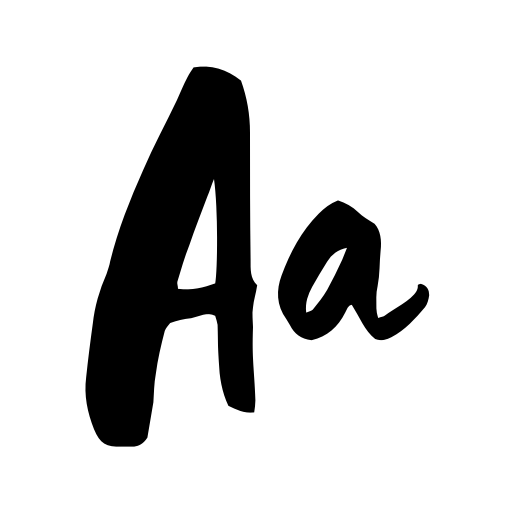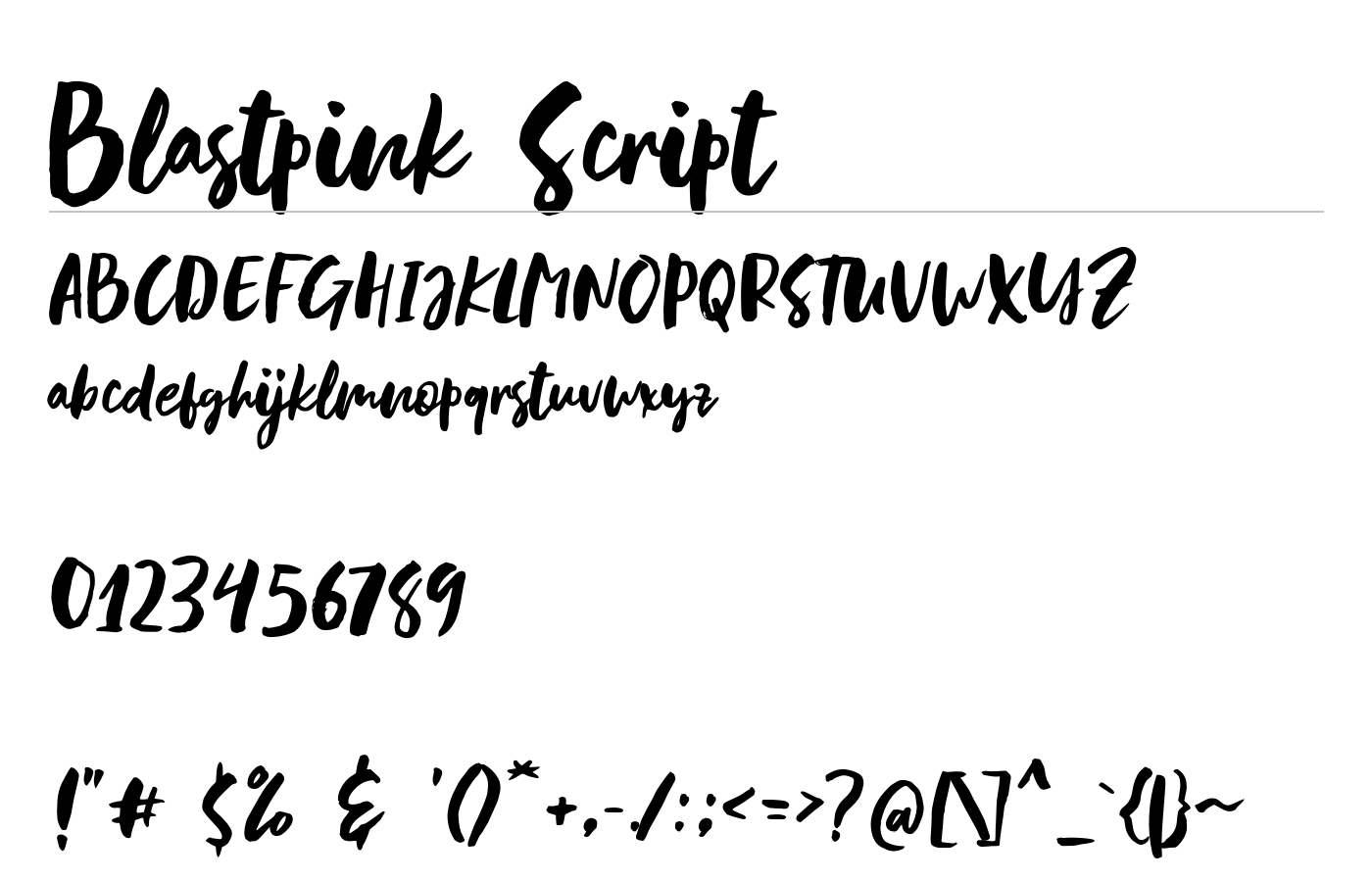
Blastpink Script is a lively and bold handwritten script font with a textured brushstroke style that adds a personal, artistic touch. Its casual yet dynamic letterforms and natural flow make it perfect for creative projects, branding, and packaging that aim to feel friendly, energetic, and approachable. This font works well in headlines, logos, and promotional materials where a hand-crafted, expressive aesthetic is desired.
Blastpink Script Font
About Blastpink Script Font
| Font family | Blastpink Script Font |
| Designer | PointlabSTD_Ferdiansyah |